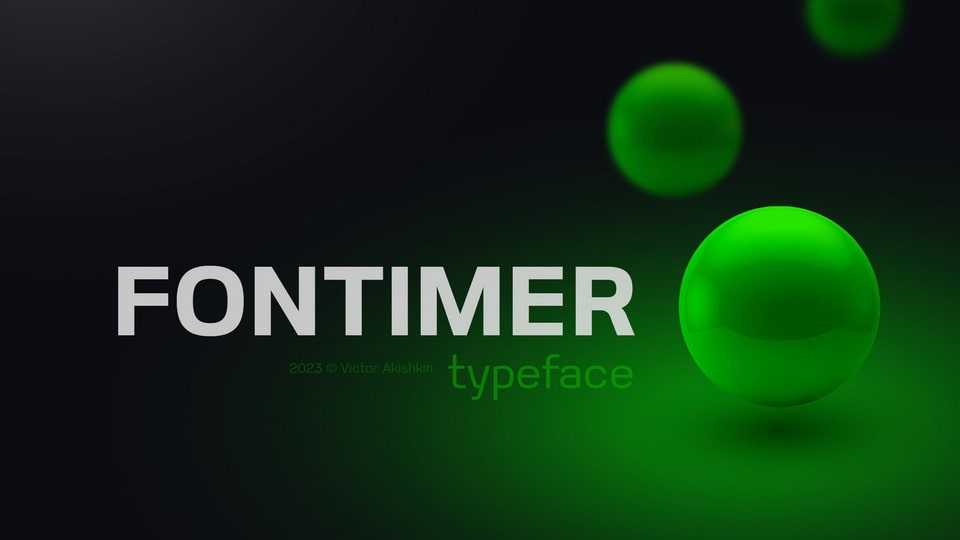
Download Fontimer font, a modern and versatile geometric sans serif typeface that exudes a clean and minimalist look. With its precisely crafted letterforms and balanced proportions, Fontimer font embodies the essence of simplicity and clarity.
Designer: Victor Akishkin